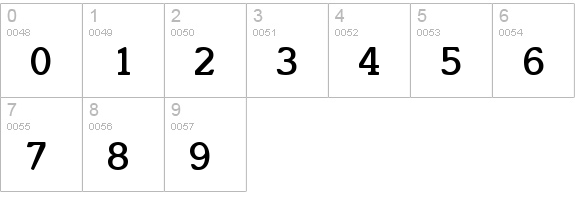
Ensemble Medium SSi Medium Font Details
Ensemble Medium SSi Medium is a balanced, medium-weight variant in the Ensemble typeface family \xE2\x80\x94 well suited to sub-headlines, navigation, and balanced editorial work.